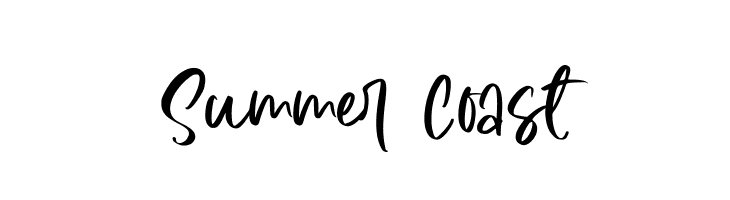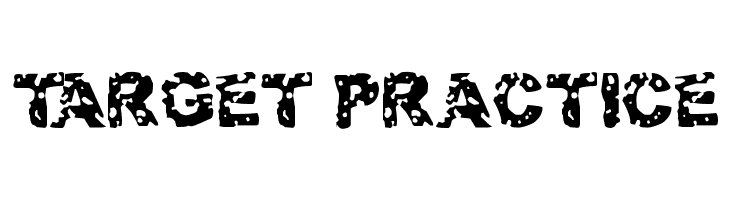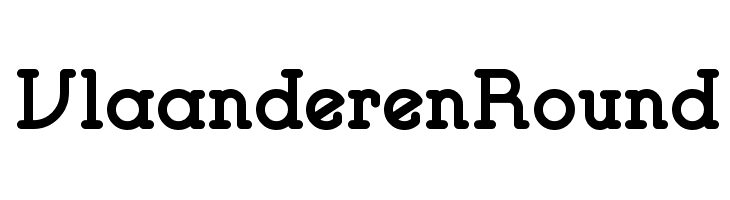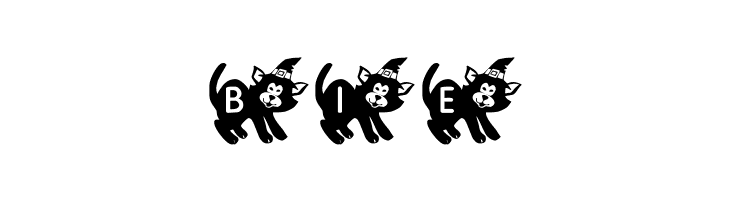
A bold, brush-style script font with a lively and artistic flair.
A rugged, chiseled font with sharp, uneven edges for a bold impact.
Highly ornamental and decorative motif font.
A playful, hand-drawn font with a sketch-like, textured appearance.
A playful, bold font with rounded, hand-drawn characters.
A graceful and elegant script font with flowing cursive lines.
A playful, casual handwritten font with smooth, rounded strokes.